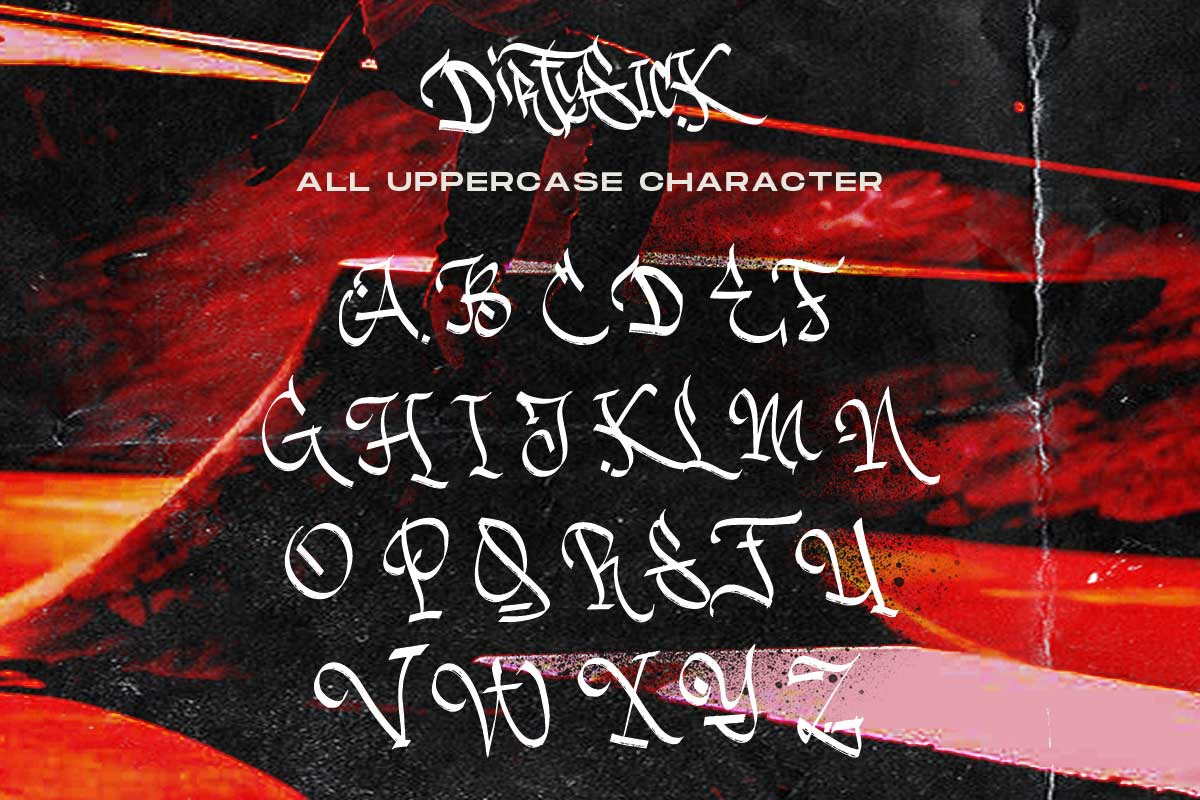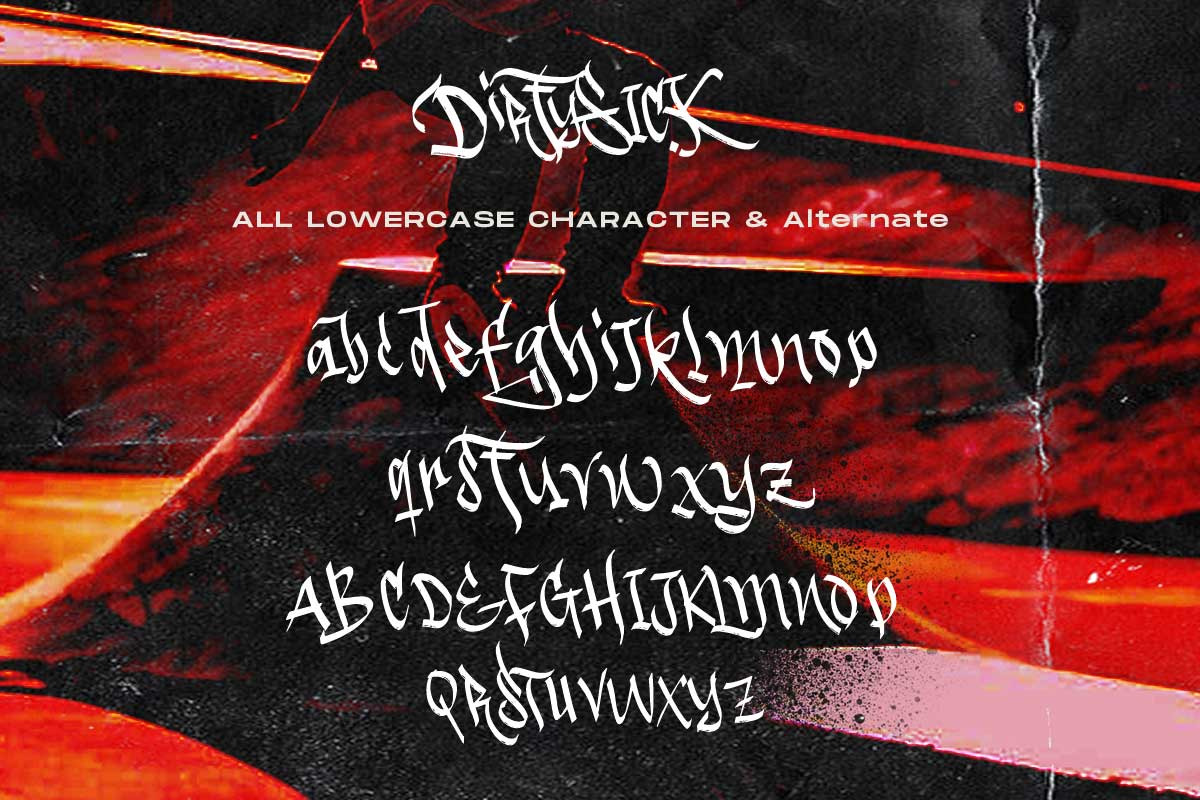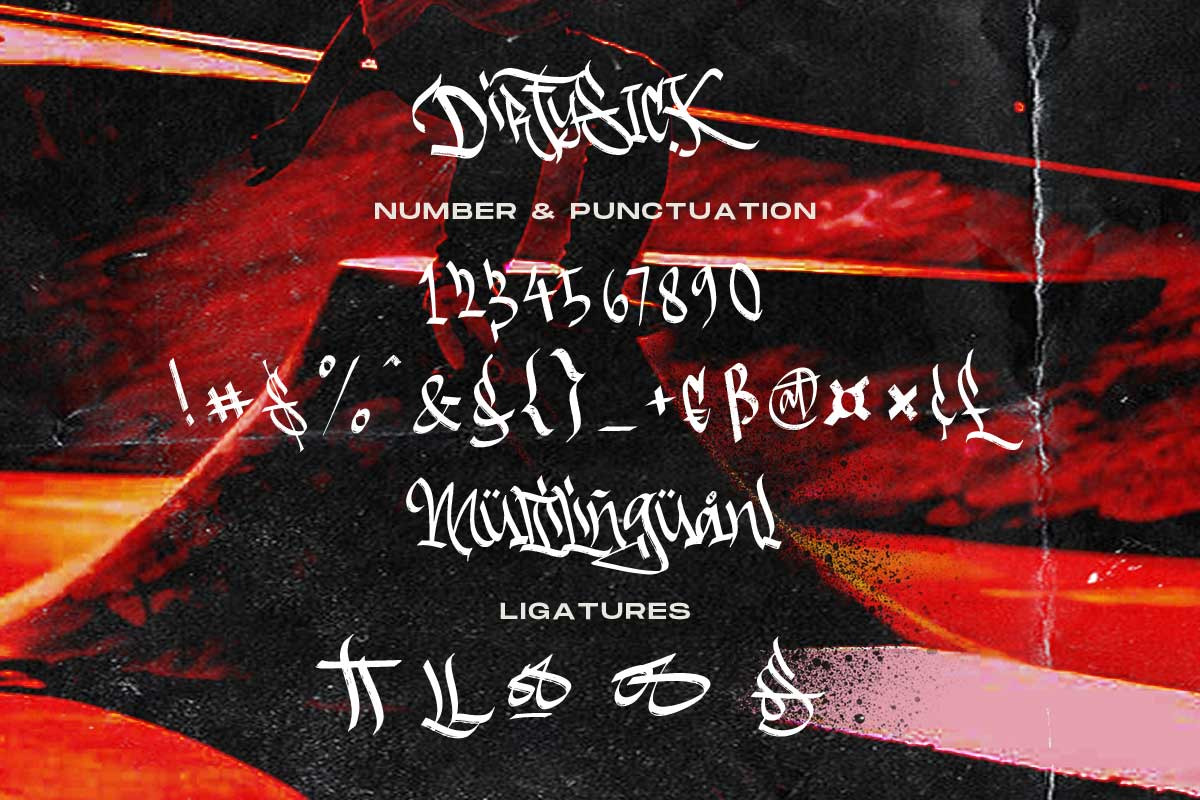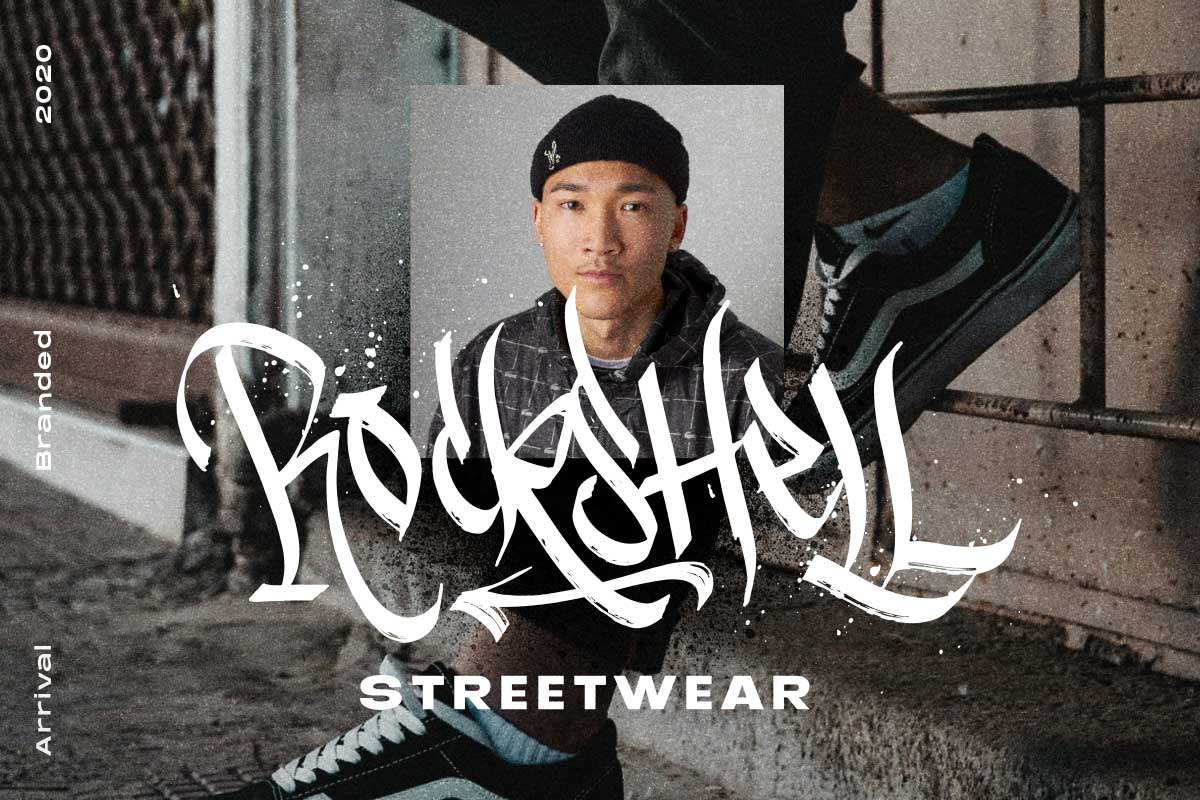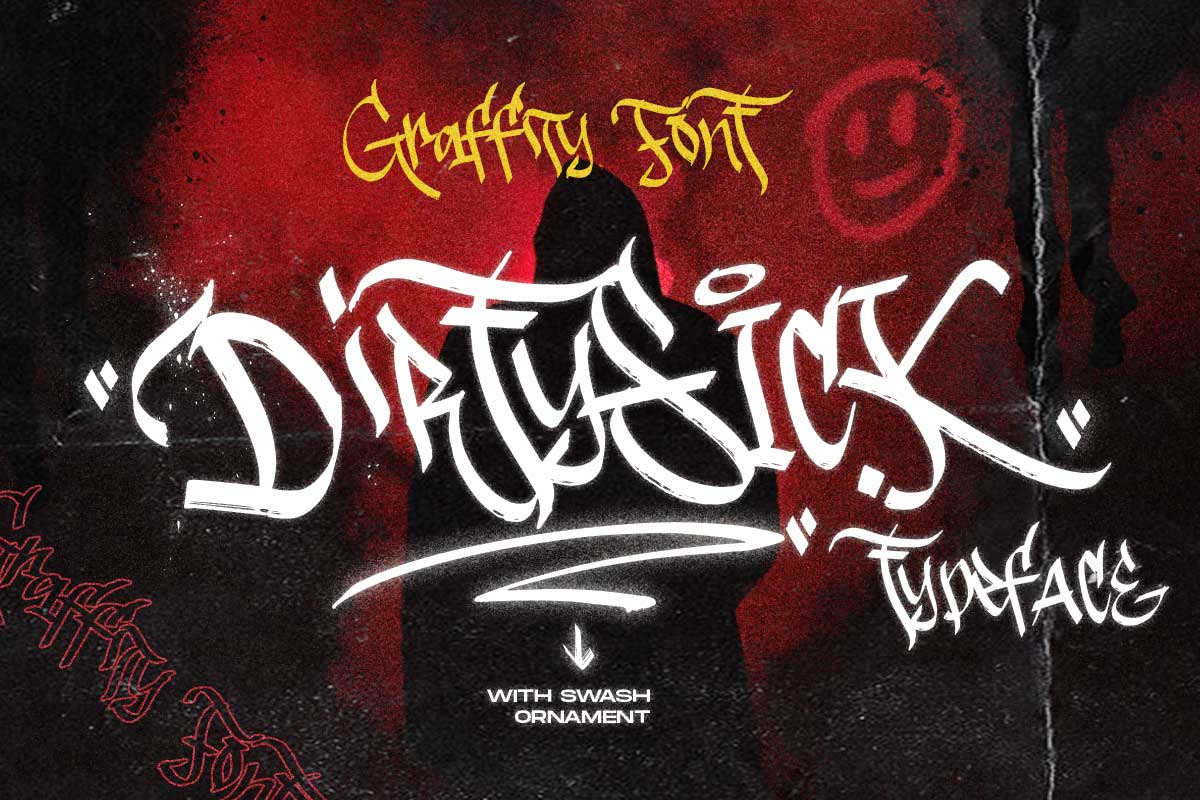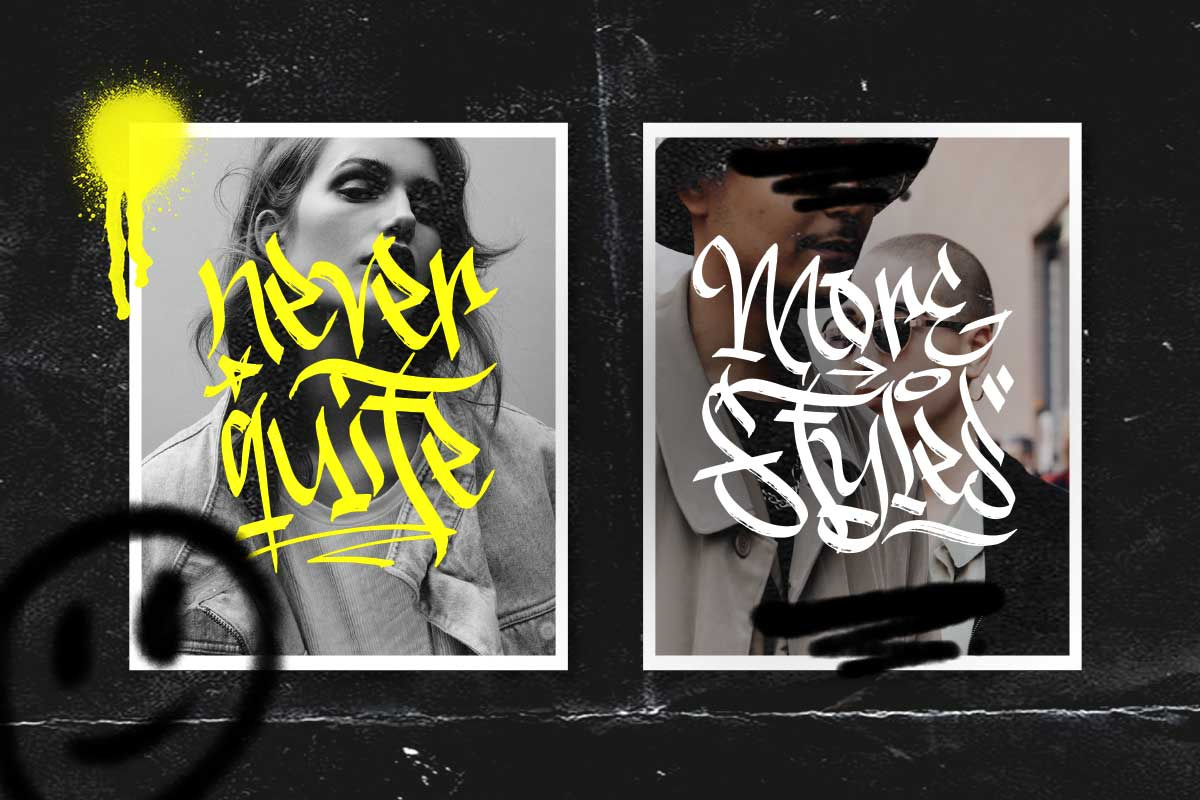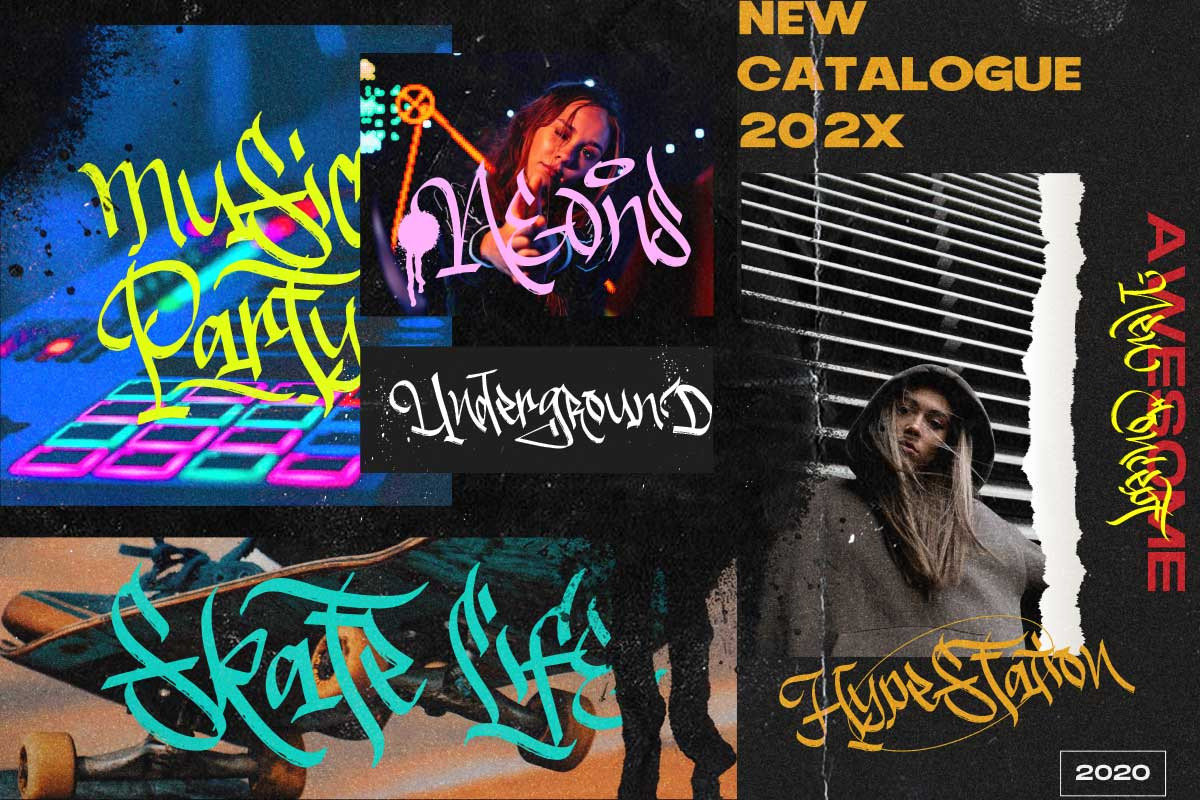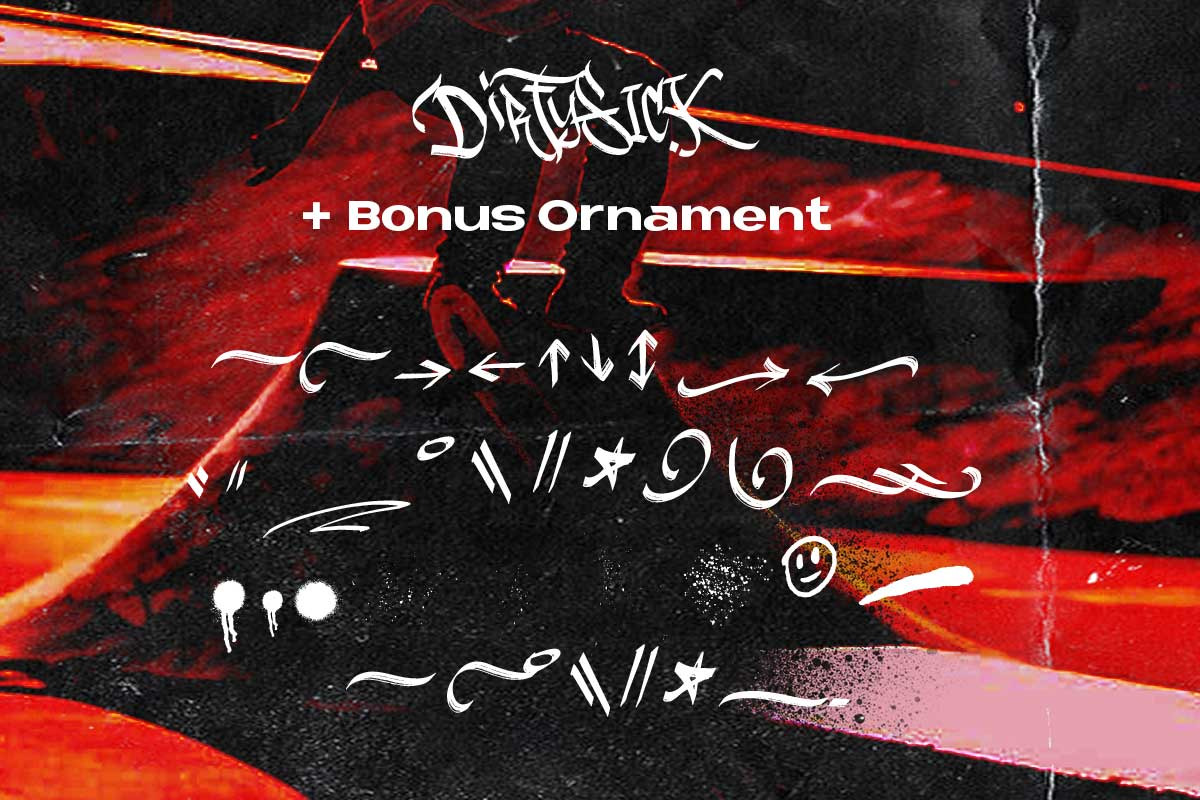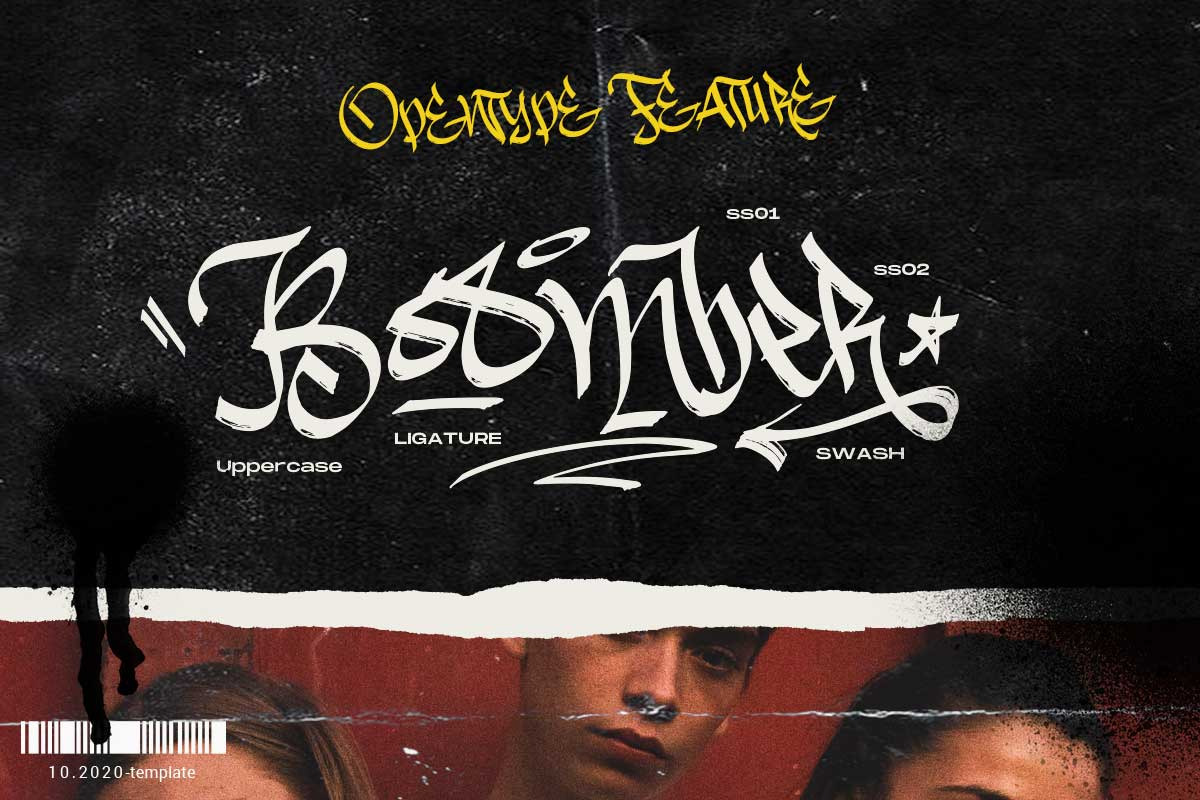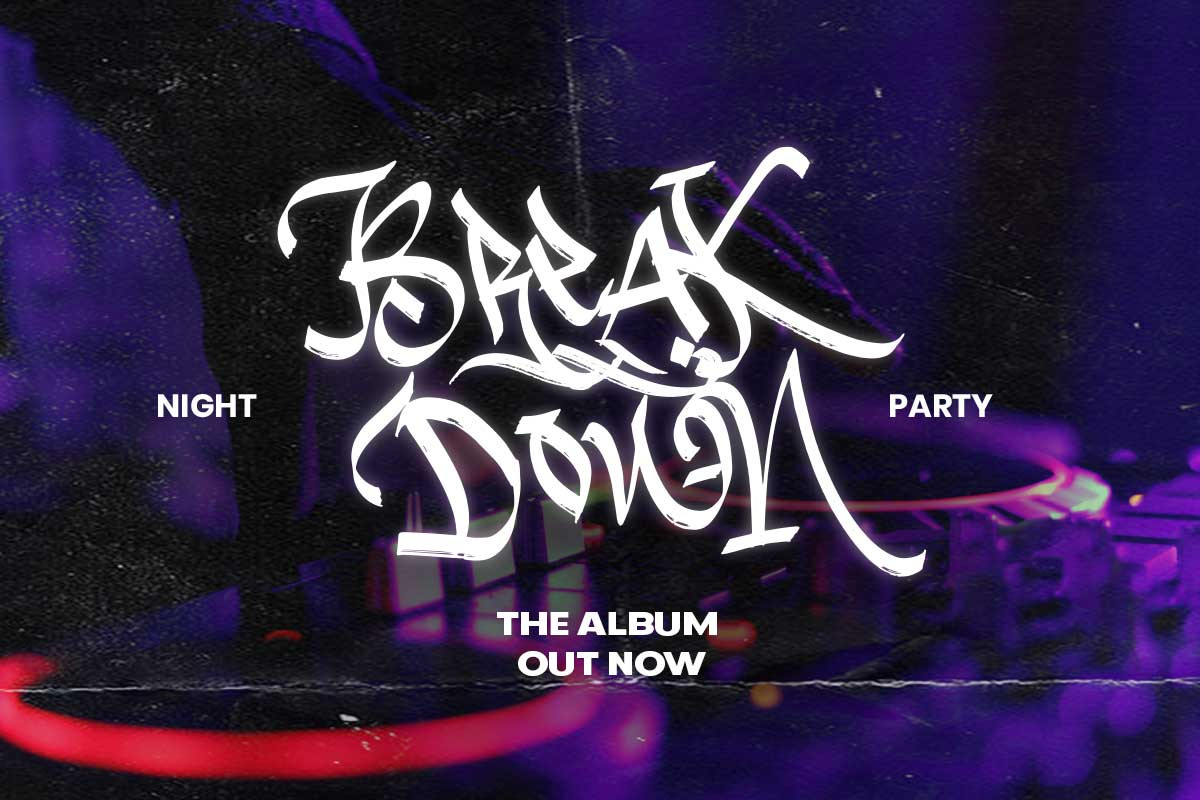
Dirtysick - Graffiti Font
Dirtysick is inspired from graffiti tag in urban City, To create the beautiful combination, just mix the uppercase and lowercase then mix with the alternative glyphs. You’ll also get some bonus ornament here in vector format and Real texture (PNG). you’ll get outlined typeface, special character (drips, line, another tag symbol etc).
- Hundred of glyphs
- Alternates and Ligatures
- Punctional
- Fonts include Multilingual Support